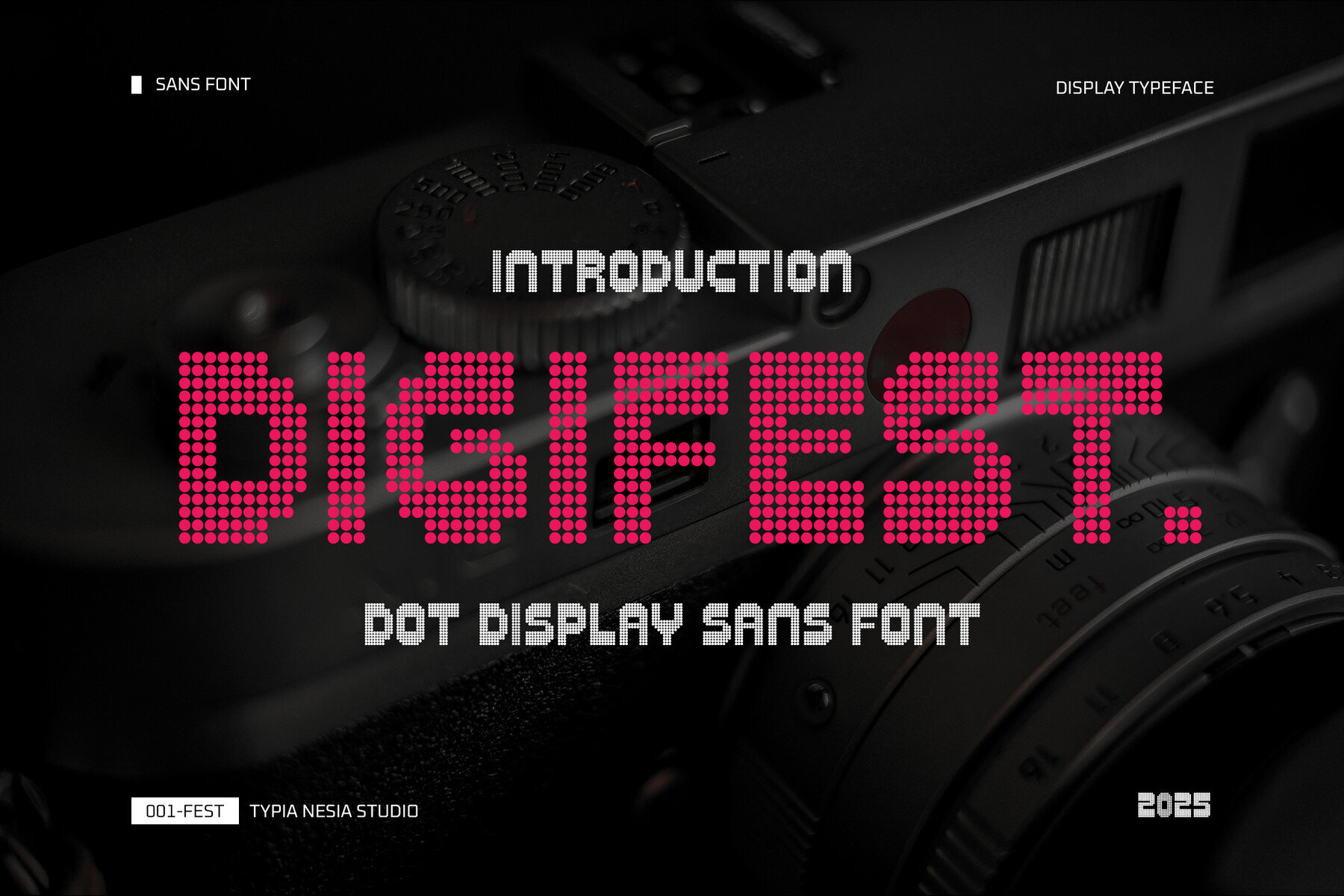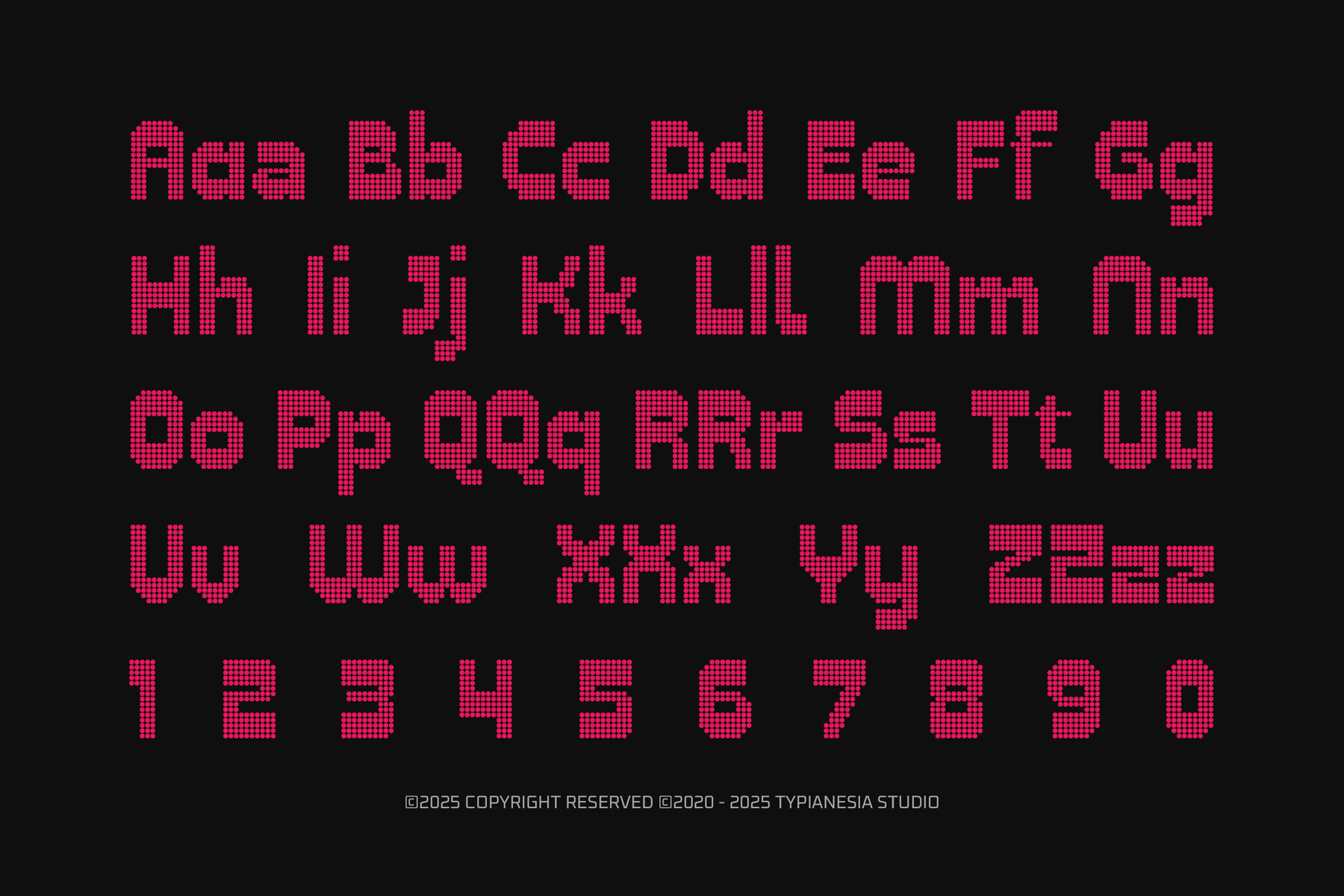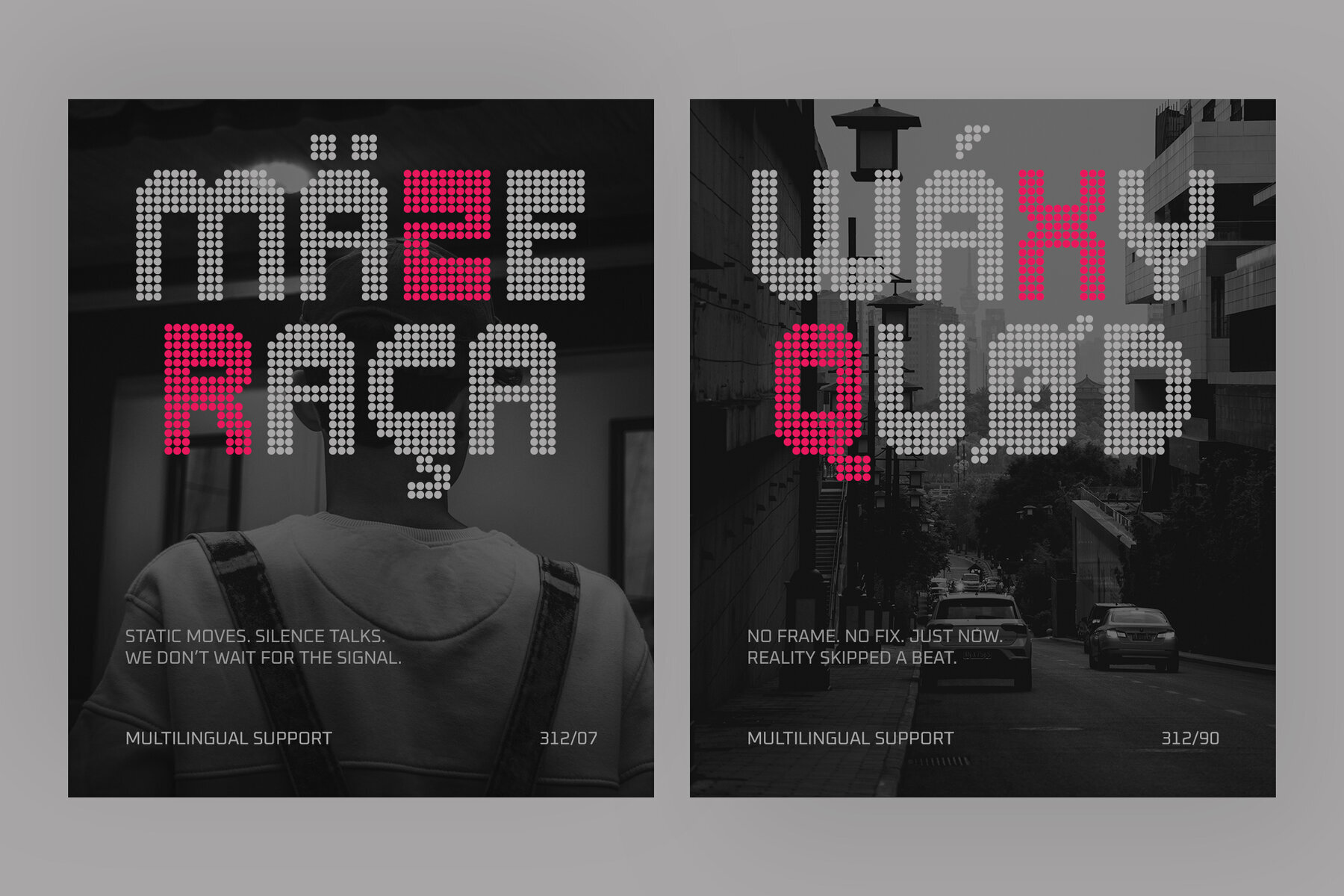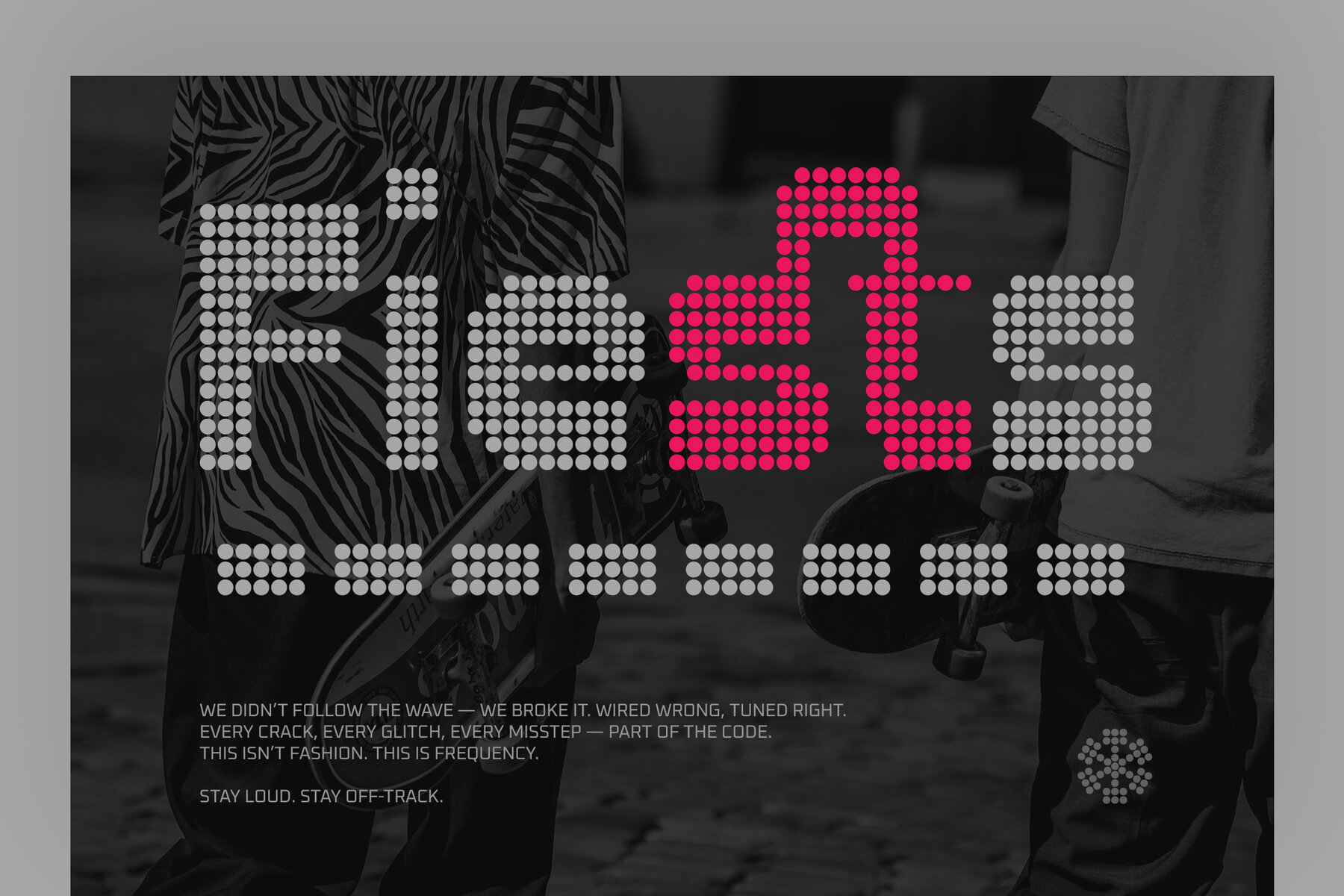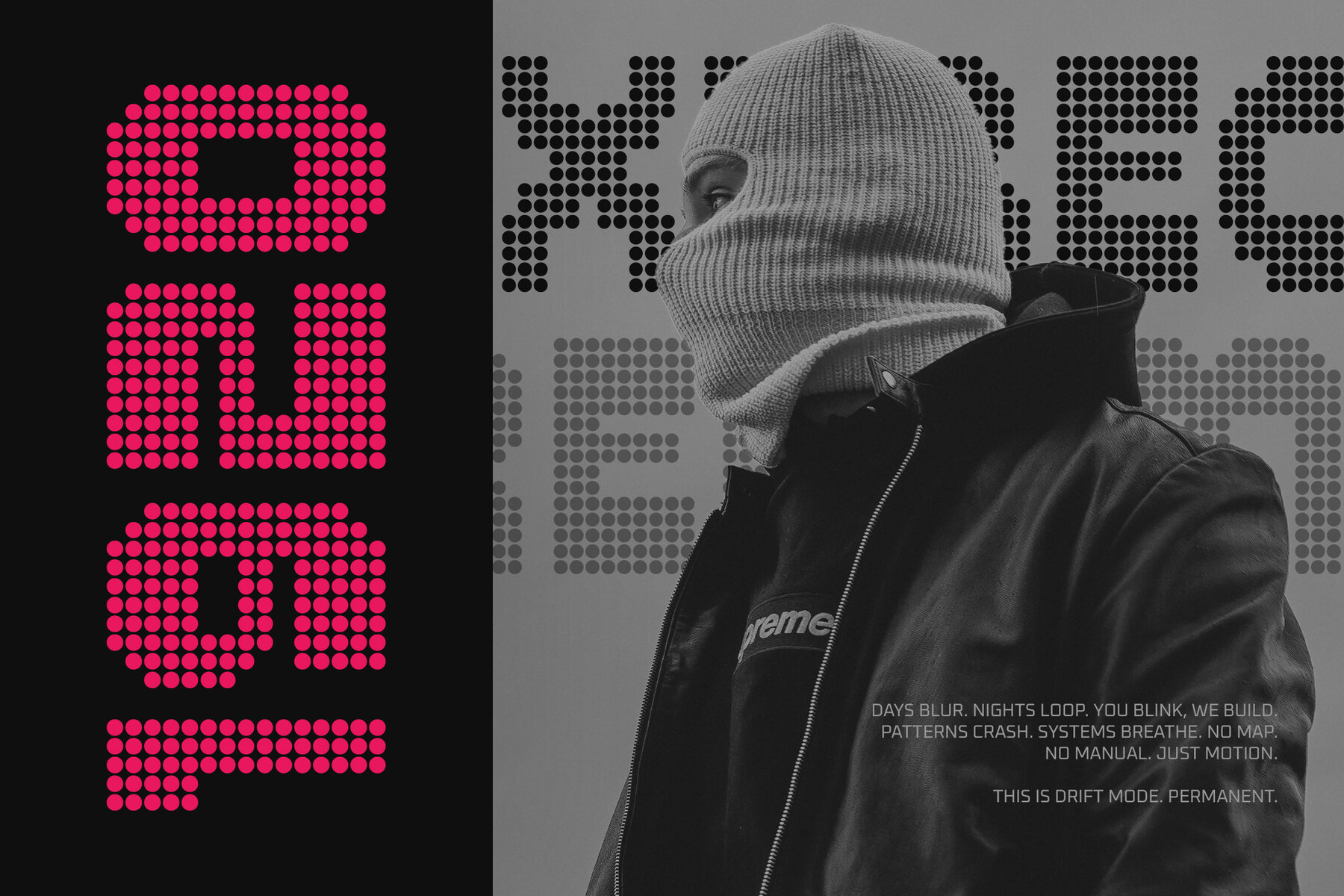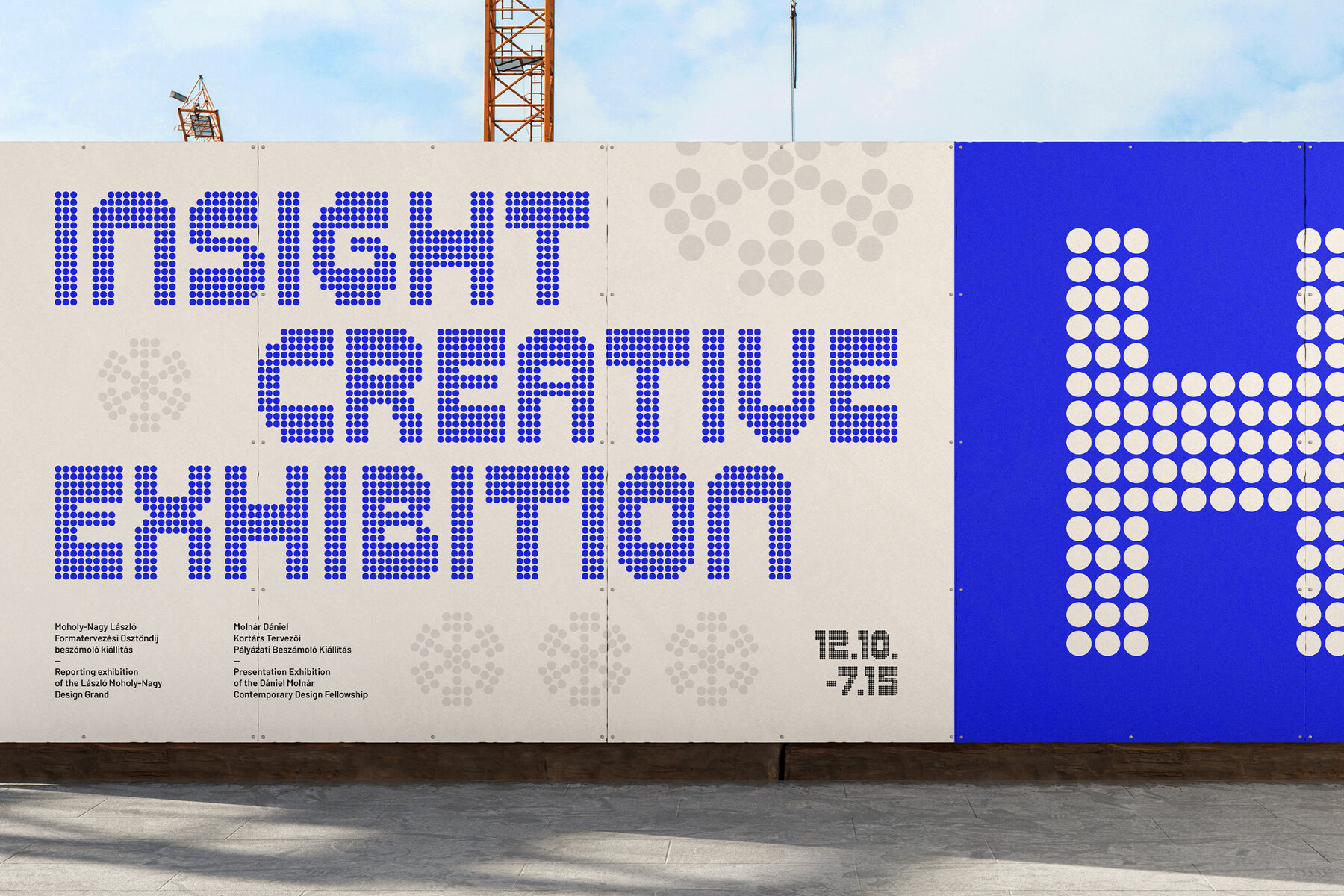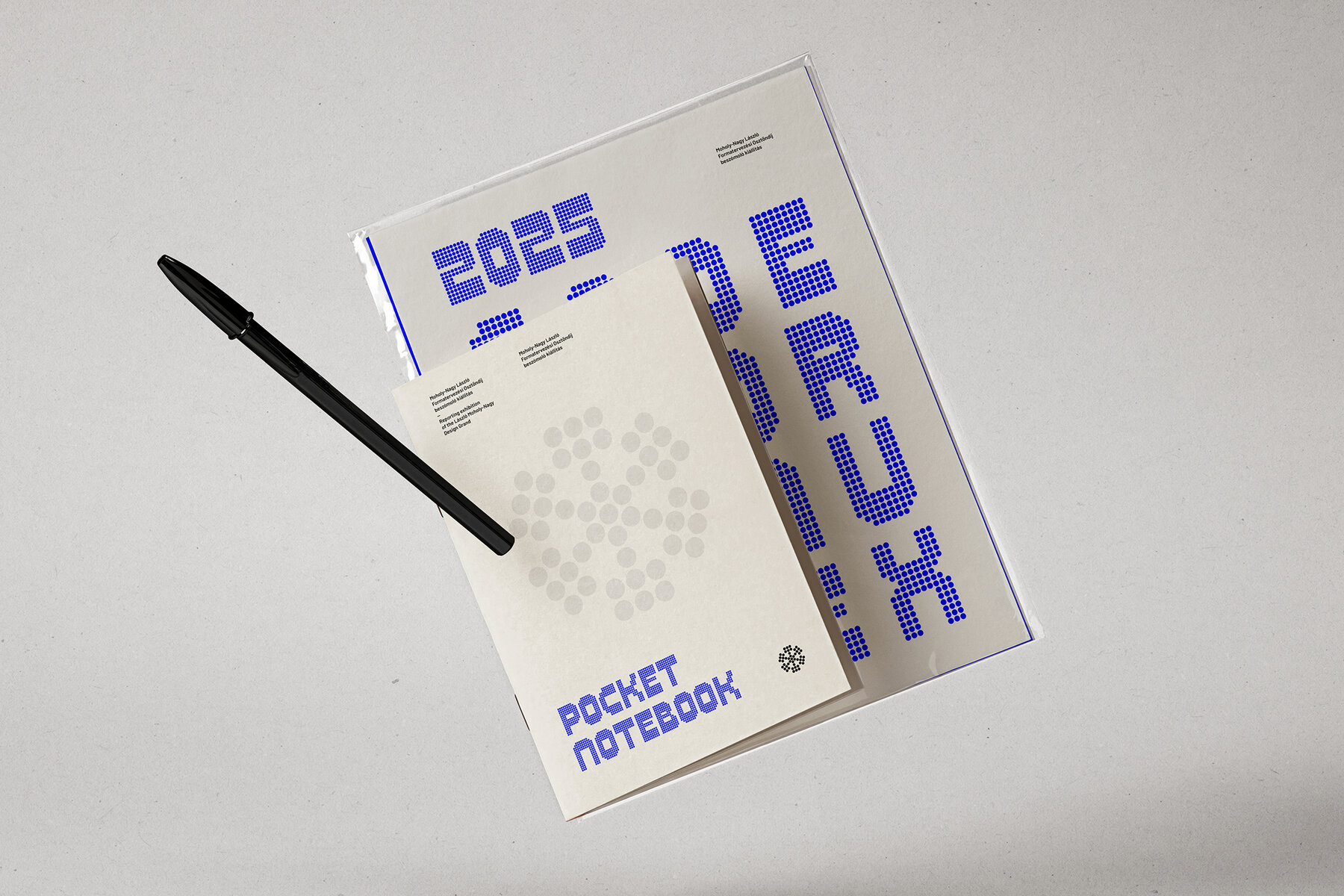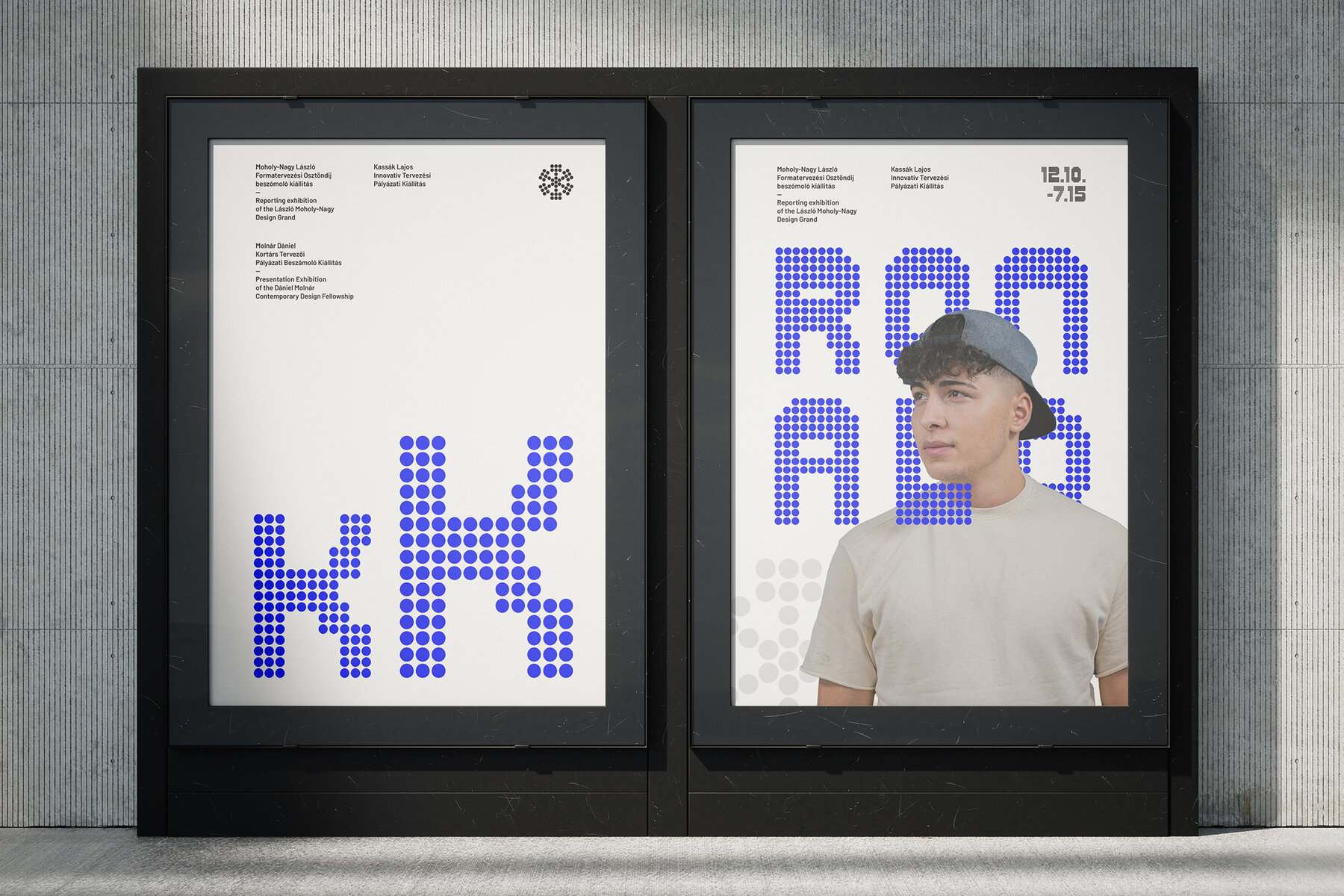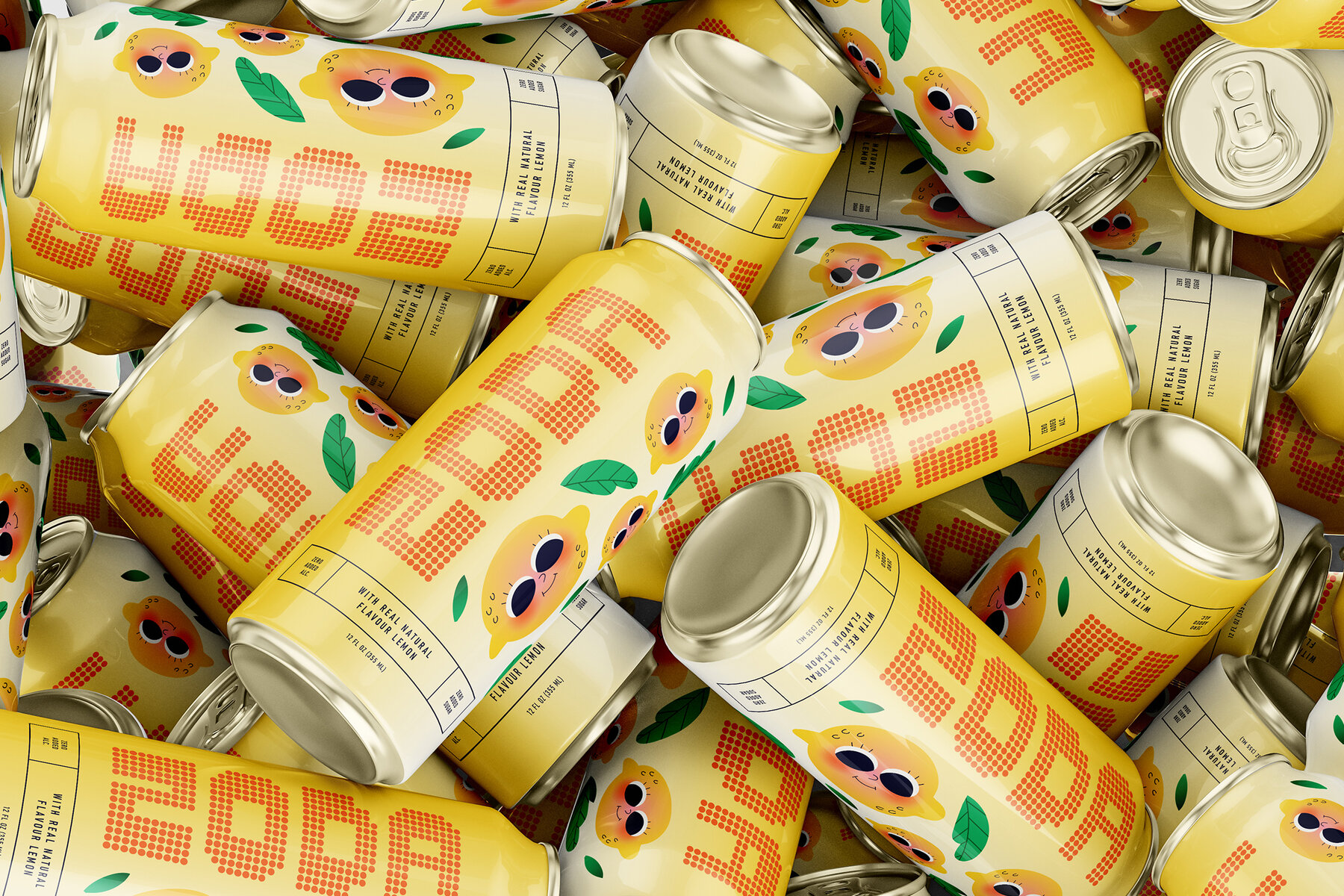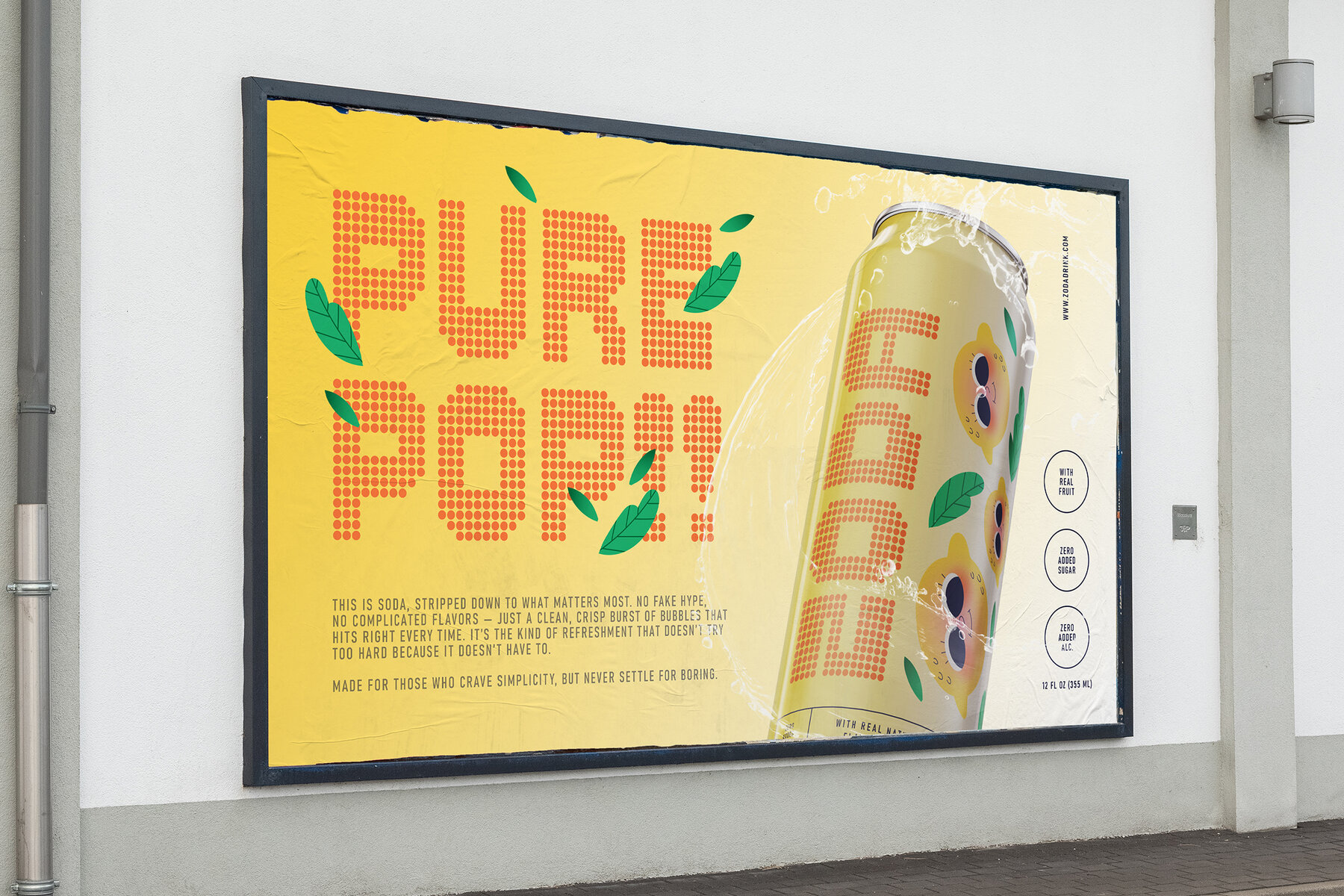
Digifest Font
Digifest Regular
Digifest, a dot display sans font by Typia Nesia Std, seamlessly combines digital aesthetics with a bold and modern flair. Each character is crafted from uniform dots, offering a pixelated yet clean appearance that stands out. Perfect for projects needing a futuristic, tech-inspired, or cyberpunk vibe, this versatile typeface fits seamlessly into gaming, urban branding, event posters, futuristic book covers, digital interfaces, packaging, advertising, and impactful headlines. With its unique visual identity, Digifest ensures your message captivates in any contemporary design. Make your digital mark with Digifest today!Digifest: Modern Dot Display Sans Typeface